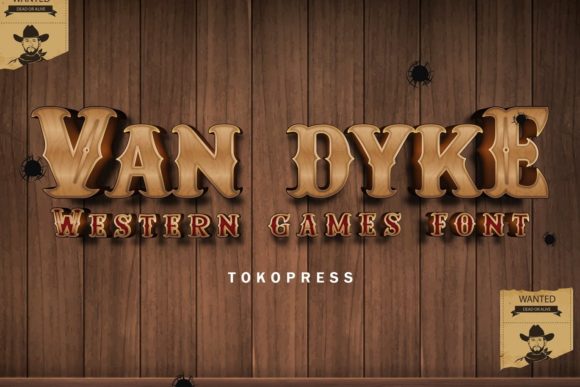
Dive into the Wild West with Van Dyke Font!
This assertive display font channels the spirit of classic movie posters, giving your designs a cinematic flair. Its bold and attention-grabbing style demands attention, making it perfect for headings, logos, and any creation craving a touch of frontier grit.
Whether you're a seasoned designer or just starting your journey, Van Dyke's versatility will empower you to create captivating designs that resonate with your audience. So saddle up, partner, and let Van Dyke Font ride your creativity to new heights!